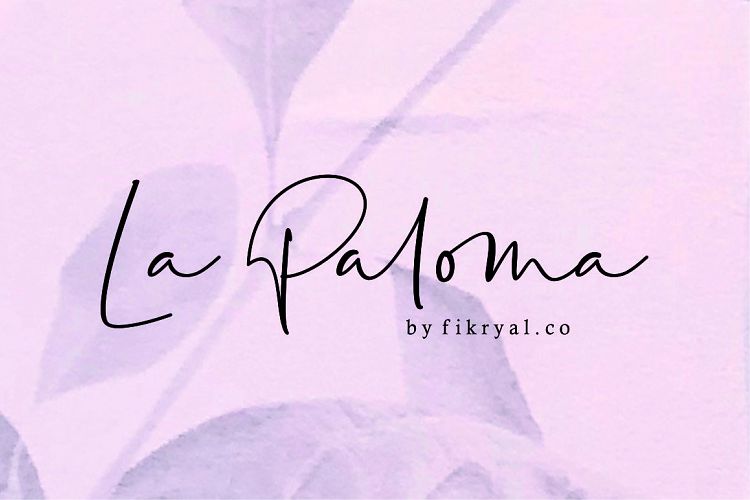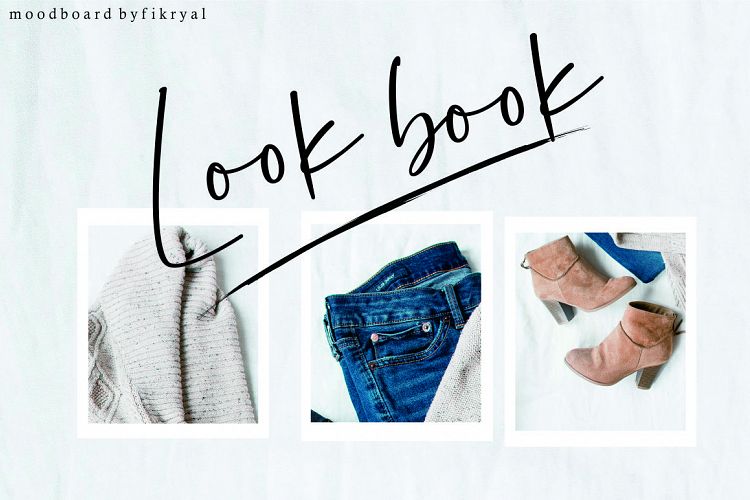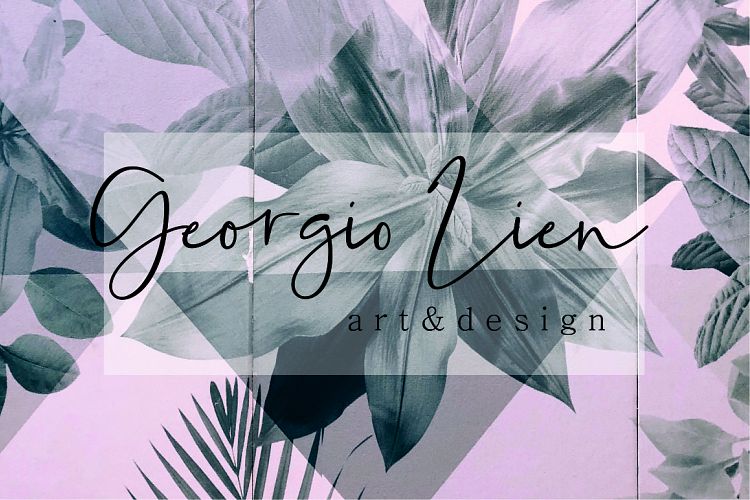
Belleson Handwriting Font
Belleson is a luxury script that designed many character of each font and ligature that will show elegant taste when You use this font. Belleson can be use in many function for your requirement brands, for logo, blog, website, and all everything that related with letters.